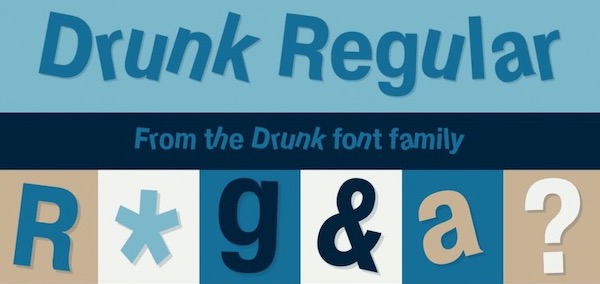
Drunk is a classy and delicate display sans serif font that was created by Alexander Tarbeev and shared by ParaType in 1997. This basic typeface is based on PT Pragmatica, 1989, by Vladimir Yefimov. For use in advertising and display typography.
Drunk Sans Serif Font